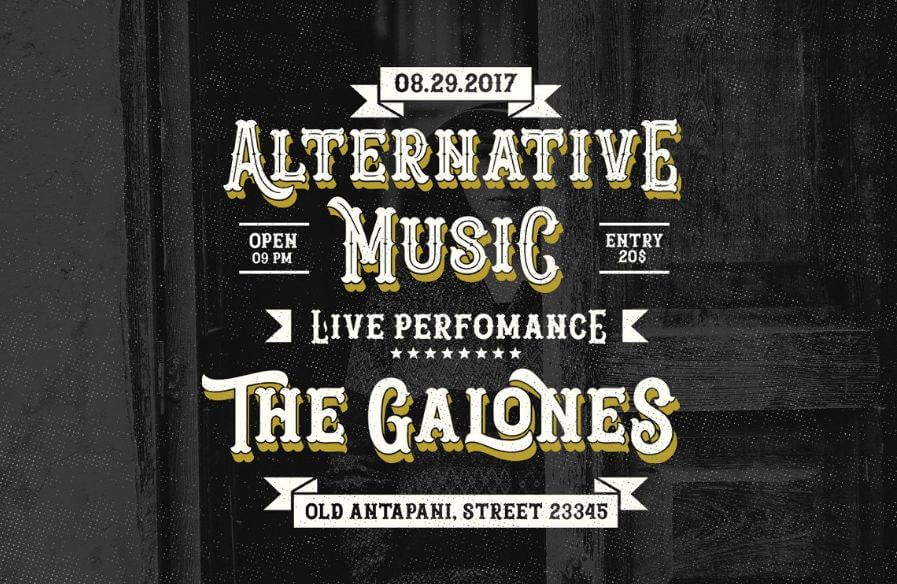
Blastrick Vintage Font
Blastrick is an old layered type method with unending design possibilities making use of exclusive combinations of fonts and colors.
Style Of Blastrick Vintage Font